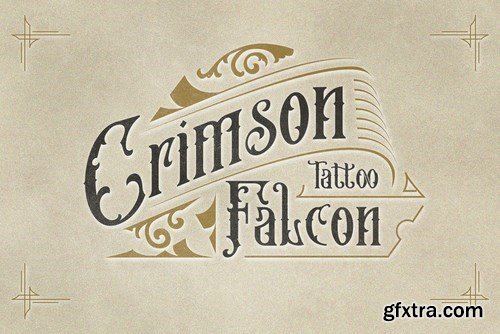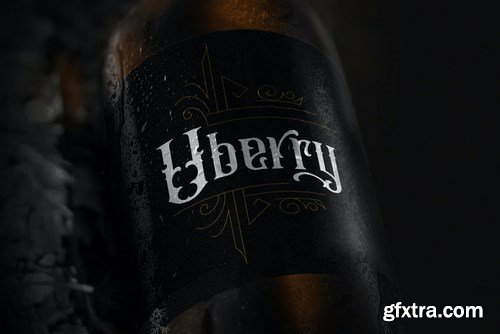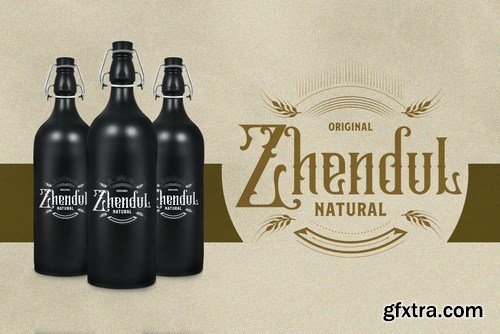
Introducing new display typeface its called Maron King
Inspired by victorian style with classic style .OpenType features some characters that allows you to mix and match pairs of letters to fit in your designs. It’s an all caps typeface, with strong and sleek letters.